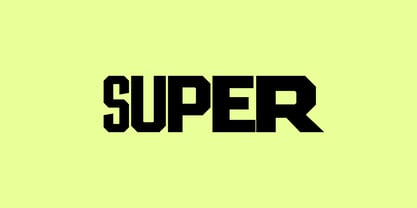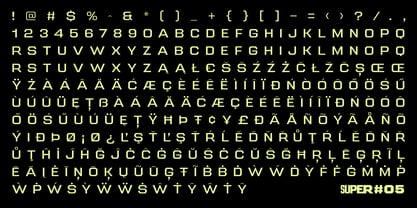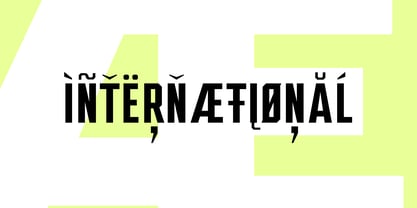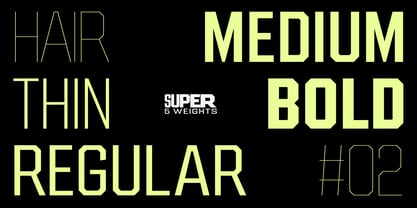
SF Super
by Studio Fat Cat
The SF Super Font Family was designed by Atok Khoirudin and published by Studio Fat Cat. SF Super contains 48 styles and family package options. More about this family
SF Super is a powerful and versatile sans serif font family built for bold logos, strong branding, and standout design. With 50 styles to choose from, it’s made to flex across everything—from modern sportswear branding to cutting-edge tech projects. Clean and geometric, with a punch of retro athletic energy, SF Super is your go-to for high-performance visual identity.
This font family blends modern innovation with vintage grit, combining sharp, technical lines with subtle grunge and stamp-style vibes. Whether you're designing for fashion, engineering, or a futuristic logo tech startup, SF Super delivers a bold, luxurious, and confidently elegant look.
Perfect for creative brands who want to stand out, SF Super gives you the tools to build a strong, cohesive brand voice—with a modern-meets-retro style that works in both digital and print. It's clean. It's tough. It's SF Super.
Designers: Atok Khoirudin
Foundry: Studio Fat Cat